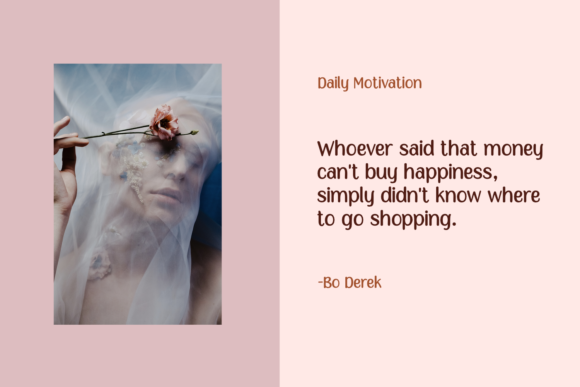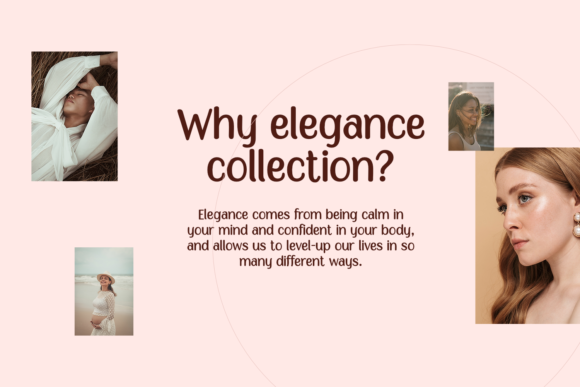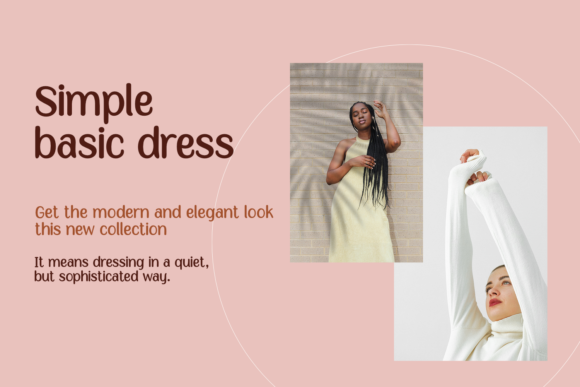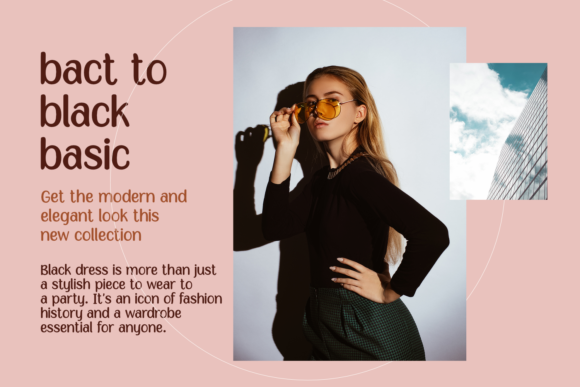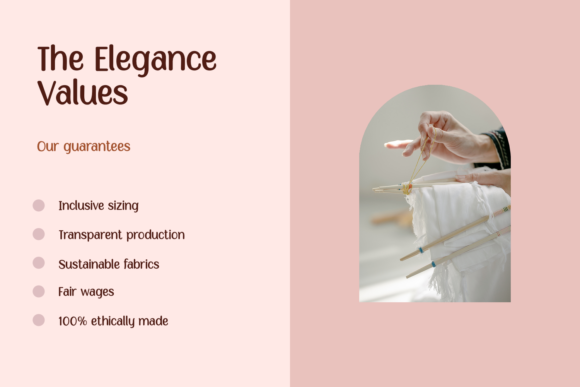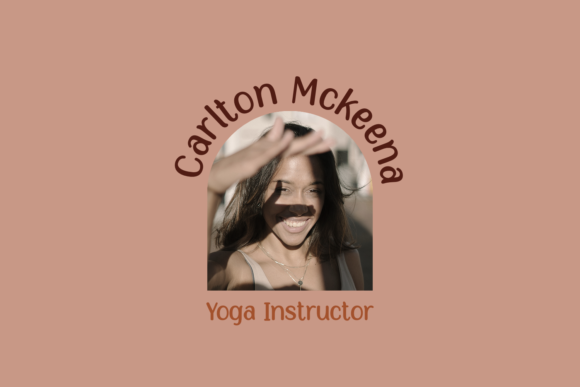
Introduction to Snappy Dresser Font
Have you ever found yourself staring at a blank page, trying to decide on the perfect font for your latest creative project? I’m sure we’ve all been there. For designers, the right font can make all the difference in setting the tone and style of our work. And that’s exactly what we’re going to explore in this article – the wonderful world of the Snappy Dresser Font.
This free download font is a design resource that’s quickly becoming a favorite among creatives. Its high quality, handwritten style gives it a unique and casual vibe that’s perfect for any project that needs a relaxed touch. With its transparent background, you can easily layer it over images or textures to create a visually interesting design. Whether you’re working on a personal project or a client brief, the Snappy Dresser Font is definitely worth checking out.
Key Features of Snappy Dresser Font
- High-quality design for creative projects, available as a free download.
- Unique, playful style with a transparent background, ideal for design resource.
- Font size: 1000 glyphs, covering a wide range of characters and symbols.
- Resolution: Optimized for high-resolution displays, ensuring crisp and clear text.
- Perfect for digital designs, such as social media graphics, logos, and web headers.
Honest Review: Snappy Dresser Font
I recently had the opportunity to use the Snappy Dresser Font in a creative project, and I must say, it’s been a game-changer. As a designer, I’m always on the lookout for high-quality fonts that can elevate my work, and Snappy Dresser Font definitely delivers. One of the things that stood out to me was the free download option, which made it super easy to integrate into my design resource library.
Here are some things that work well with the Snappy Dresser Font: ✨
- Transparent background, making it easy to layer with other elements
- Wide range of uses, from headings to body text
While the Snappy Dresser Font is an excellent addition to any design library, there are a few limitations to be aware of: ⚠️
- May not be suitable for formal or professional applications
- Limited font sizes and styles compared to other premium fonts
Overall, I’m really impressed with the Snappy Dresser Font. It’s a great free resource that can add a lot of personality to your designs. With its high-quality design and transparent background, it’s perfect for creative projects where you want to make a statement. I’d definitely recommend it to fellow designers looking for a fun and playful font to add to their arsenal.
Tips for Getting the Most Out of the Snappy Dresser Font
To get the most out of the Snappy Dresser Font, use it in combination with other design elements, such as graphics and images. Experiment with different font sizes and colors to create a visually appealing design. This font is perfect for creating a variety of designs, from social media graphics to presentations and documents.
The Snappy Dresser Font is commonly used for designing social media graphics, blog posts, and presentations. Its unique style and high-quality design make it perfect for creative projects that require a stylish and engaging look. With a transparent background, you can easily combine it with other design elements to create a visually appealing design.
Q: Does the Snappy Dresser Font have a transparent background?
Yes, the Snappy Dresser Font has a transparent background, making it ideal for designing graphics, logos, and other visual elements that require a clear background. This feature allows you to easily combine the font with other design elements and create a seamless look.